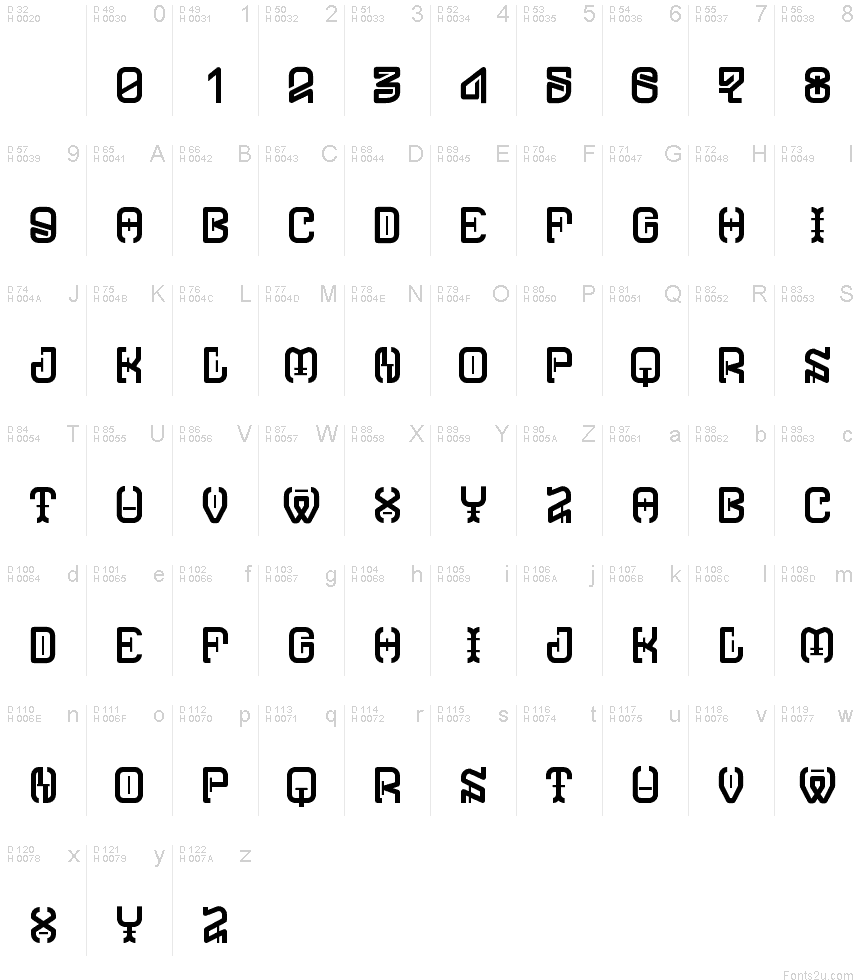
Typodika by Mostafa El Abasiry is a free decorative display font with massive rounded forms and a stark geometric build. Deep internal cutouts turn many letters into compact symbols. The repeated slots and crossbars give the alphabet a mechanical, almost architectural character.
Technology brands can use it for logos and packaging with a futuristic edge. Its dense silhouette also fits electronic music posters and game title screens. The cutout motif can echo circuit traces, control panels, or interface graphics.
Typodika, designed by Mostafa El Abasiry, is a free decorative display font.